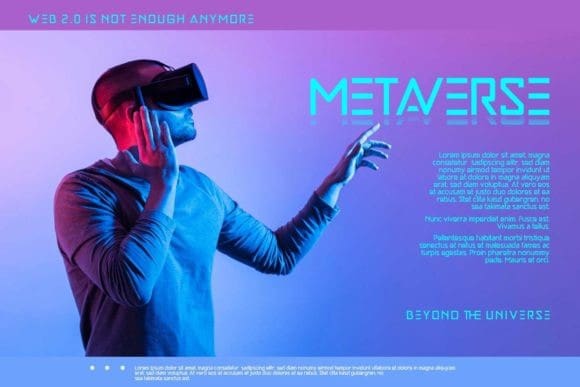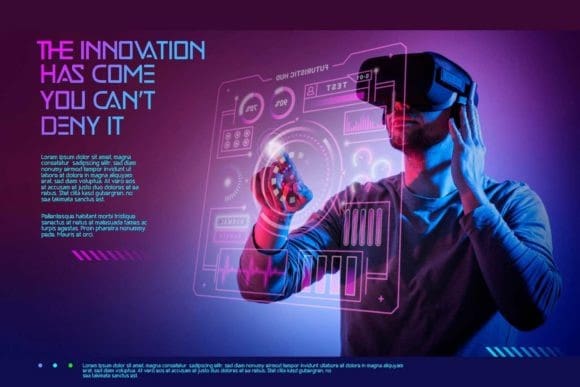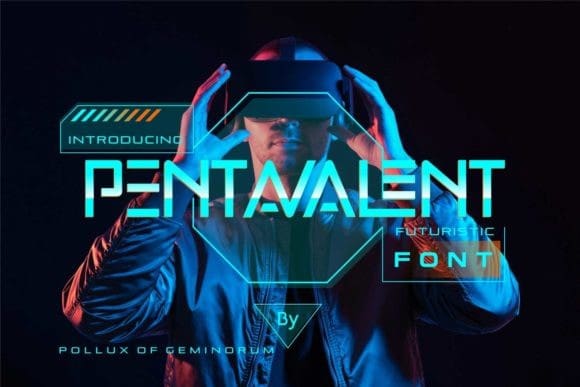
Pentavalent Font
Pentavalent Font is a cool, bold futuristic display font. It is suitable for any projects such as: logos, branding projects, label, photography, watermark, special events, and all your other lovely projects that need a modern taste.